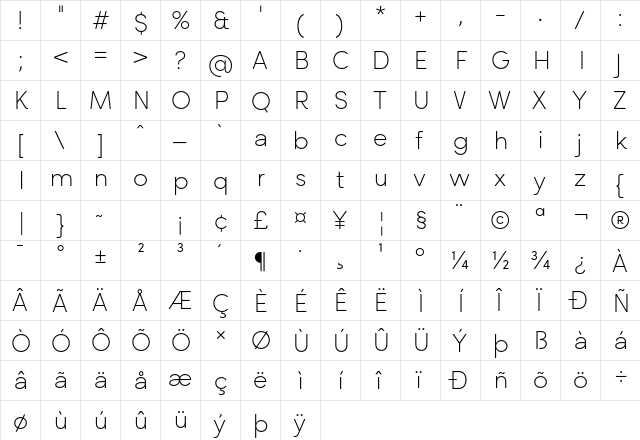
Rozanova HUM - Demo Thin
Design Context for Rozanova HUM - Demo Typeface
Rozanova HUM - Demo offers clean, dependable letterforms without strong stylistic allegiance, making it a practical choice for designers who need flexibility. The delicate stroke weight brings airiness and refinement to layouts.